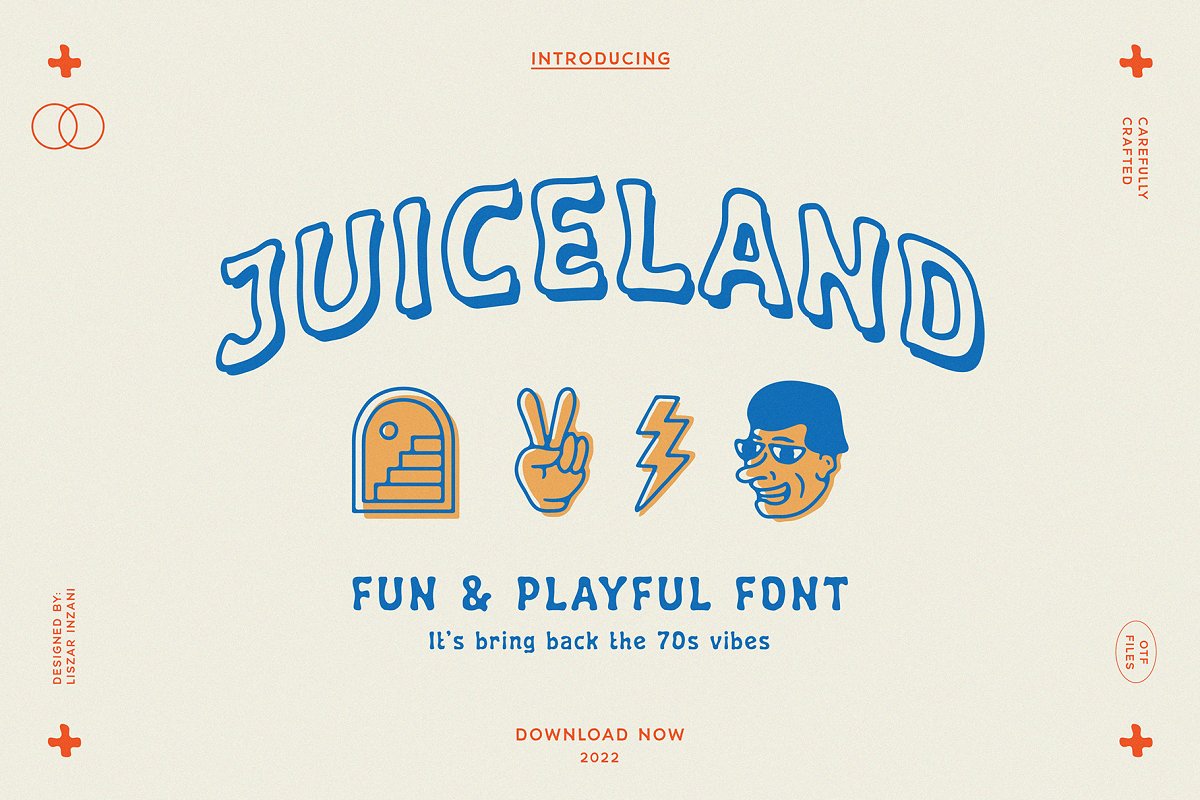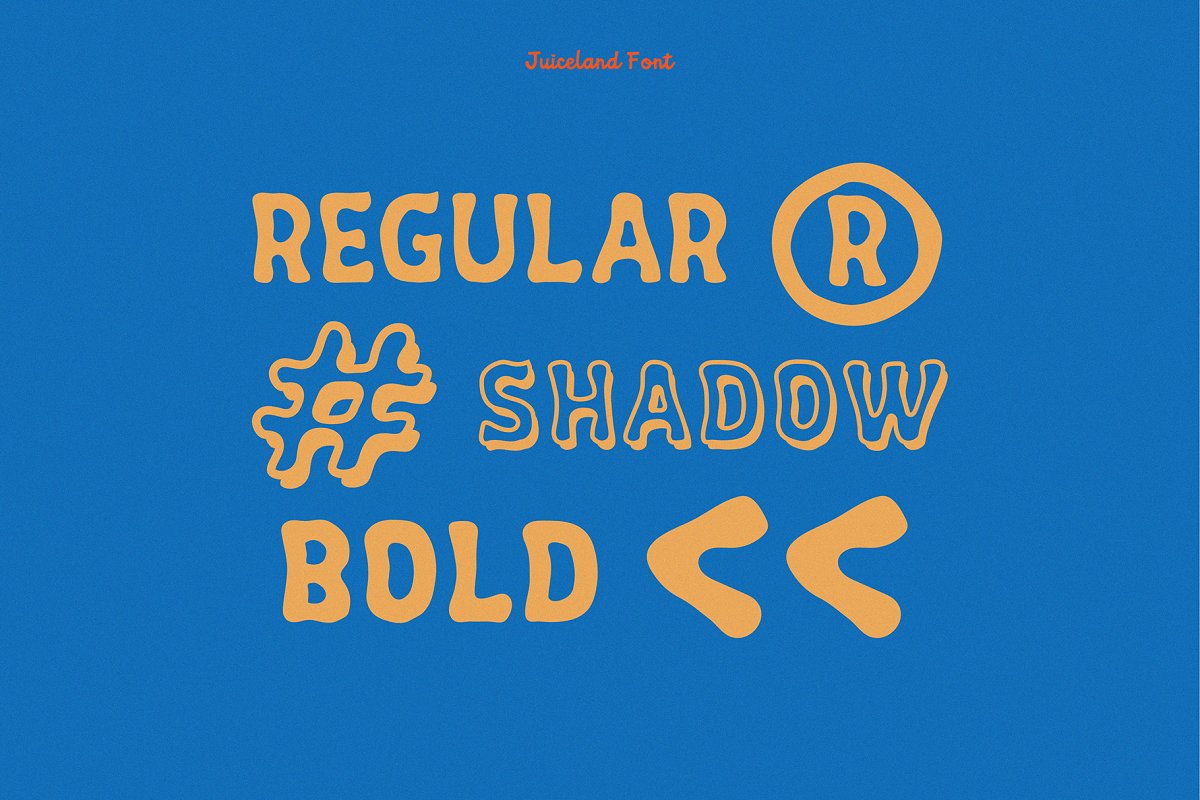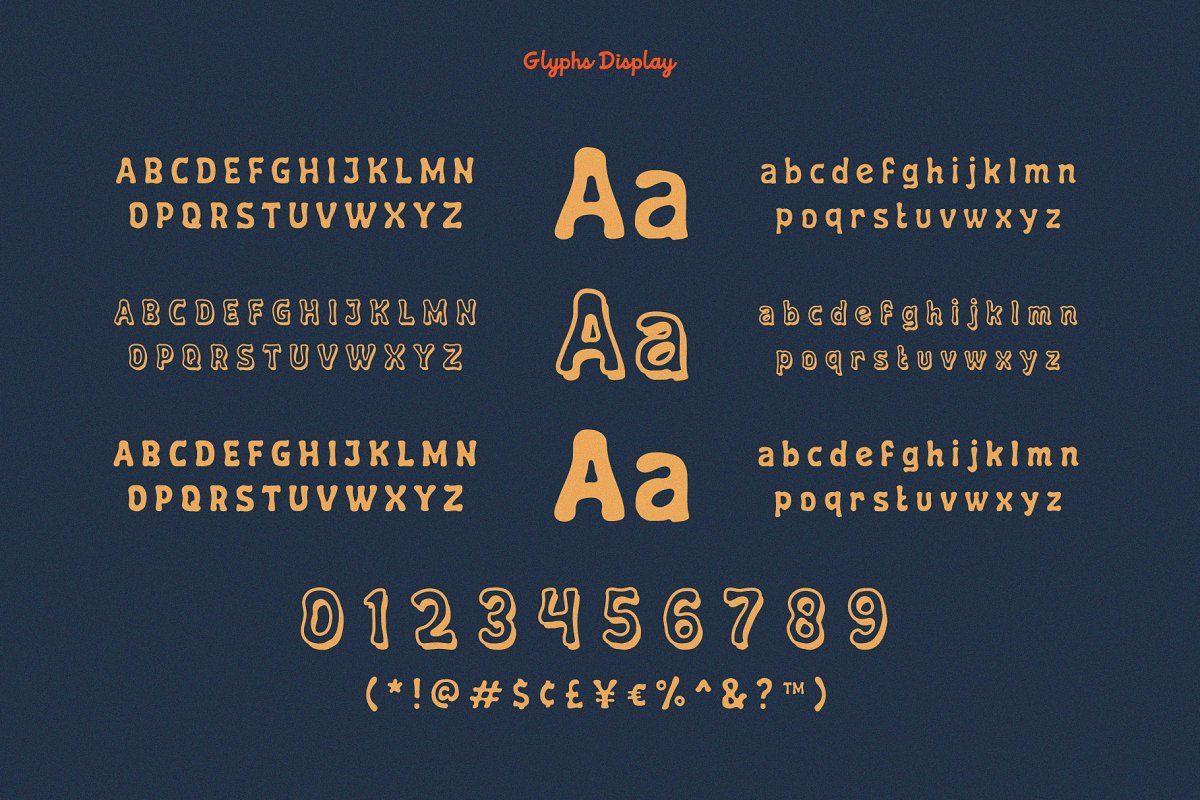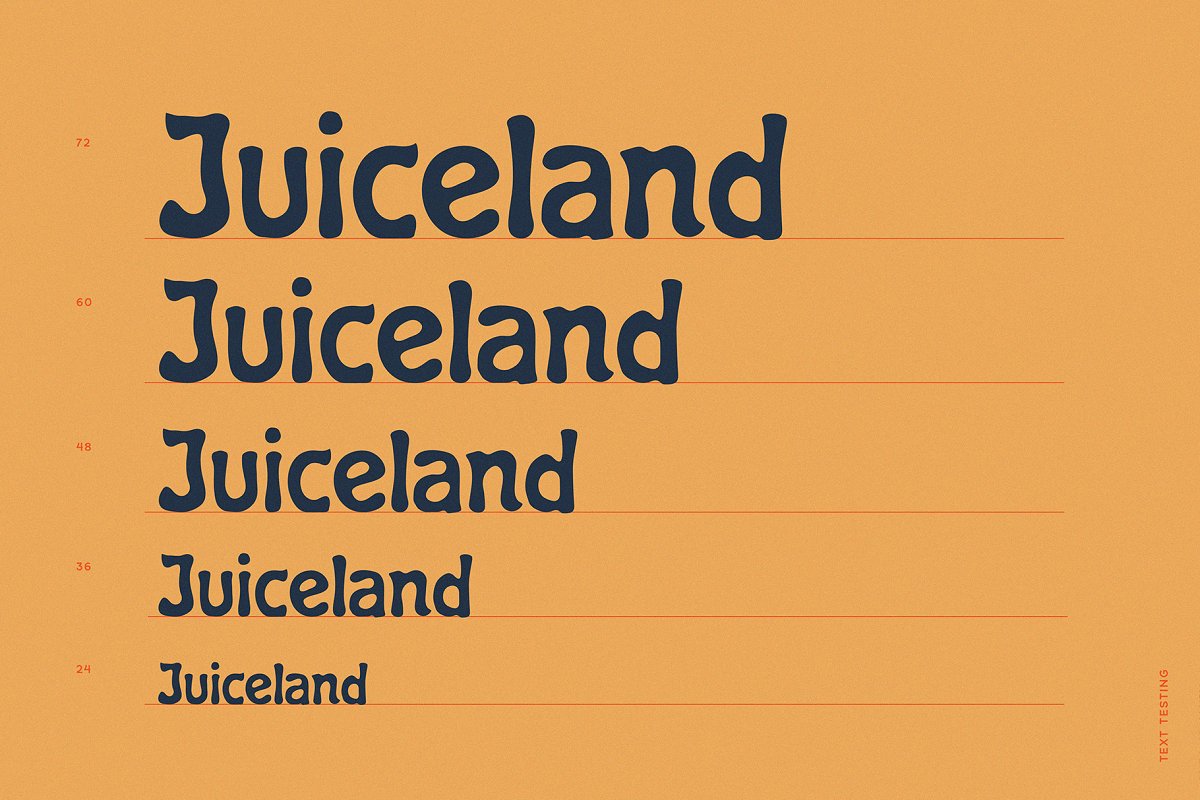
About the Juiceland | Playful Font
Introducing, Juiceland -A Playful Font, It’s inspired 1970s type, Juiceland is friendly and playful font come with 3 Styles: Regular, Shadow and Bold, What’s included ?OTF FileStandard English alphabetUppercase & Lowercase letters 11 editable stickers templete ( AI & EPS)Number, Currency Symbols & Standard PunctuationsWe hope you enjoy the font, If you have questions, don’t hesitate to give me a message liszarinzani@rocketmail